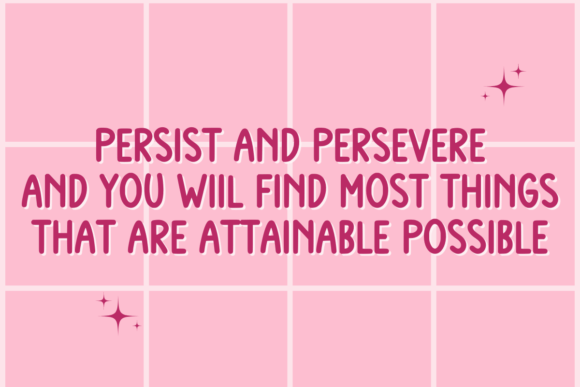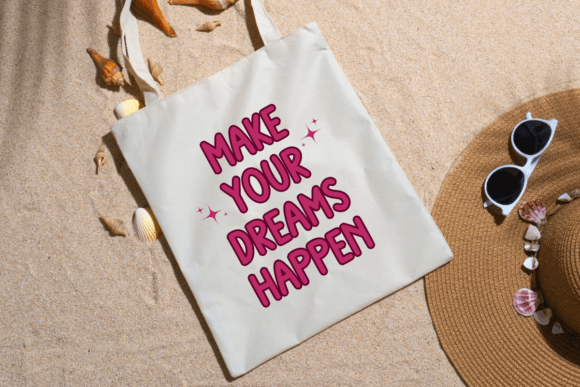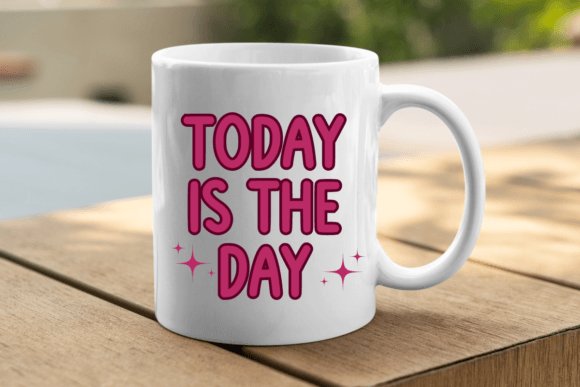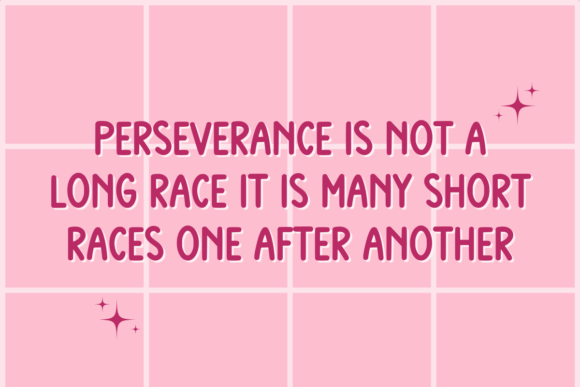
Introduction to Queen Craft Font
Queen Craft is a cute sans serif font.
That is suitable for perfecting your creative projects such as stickers, notes, planners, SVG quotes, t-shirts, wall art, Cricut, craft, embroidery, posters, cards, and many other ideas .
Key Features of Queen Craft Font
Why Choose Queen Craft Font?
Queen Craft Font offers exceptional quality and versatility, making it a valuable addition to your design toolkit. Whether you’re creating for personal projects or commercial use, Queen Craft Font delivers professional results.